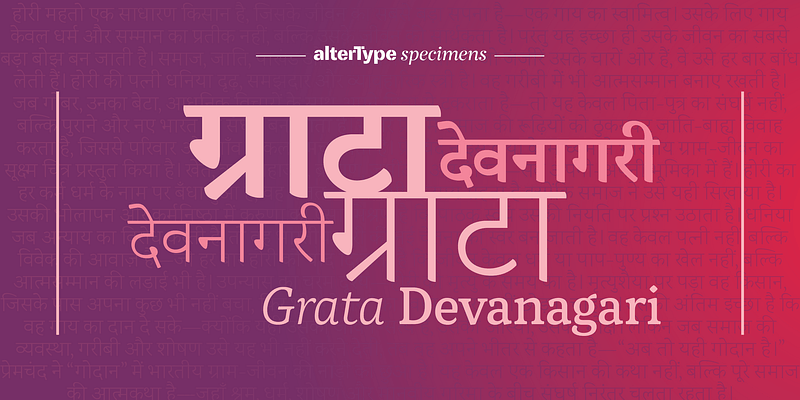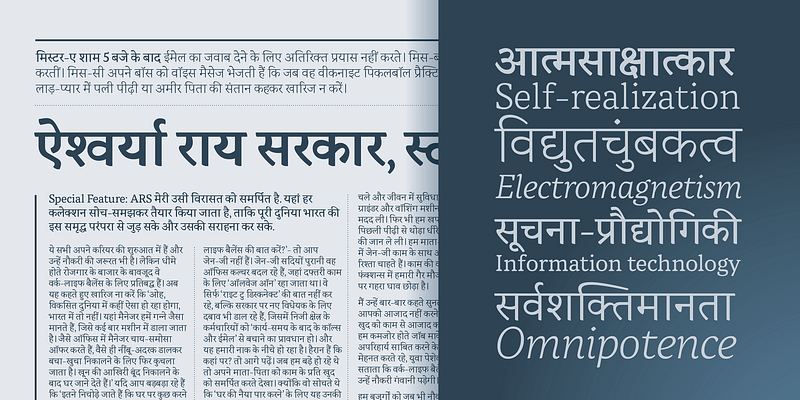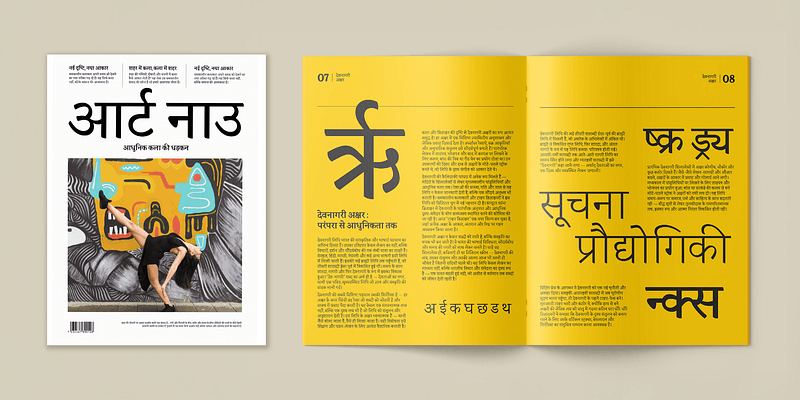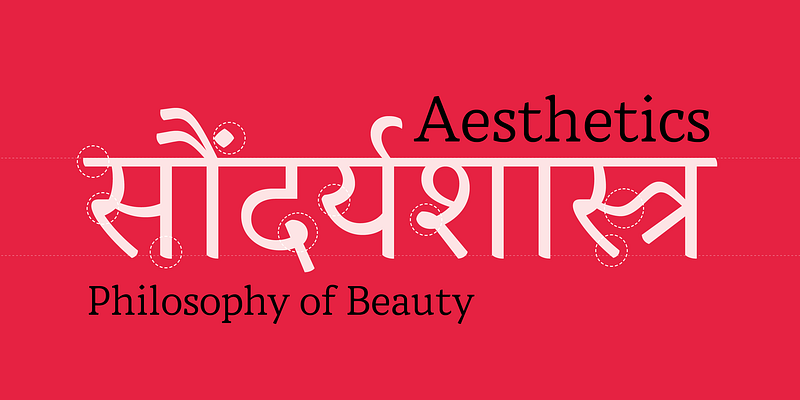
Grata is a versatile typeface designed for effortless, comfortable reading across both screen and print. Seamlessly combining contemporary aesthetics with timeless elegance, it offers a sophisticated, balanced, and harmonious typographic texture. Grata Devanagari extends this sensibility into Devanagari, bringing refined details and a contemporary sophistication to classical letterforms.